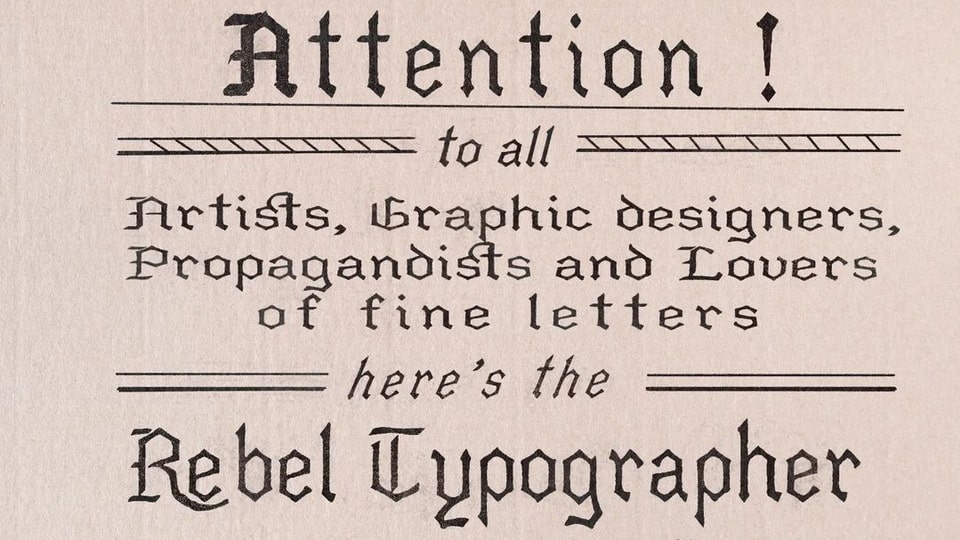
Download Rebel Typographer font, a straightforward, accessible and aesthetically pleasing typeface inspired by a typography from 1877.
Designer: Loki Gwynbleidd